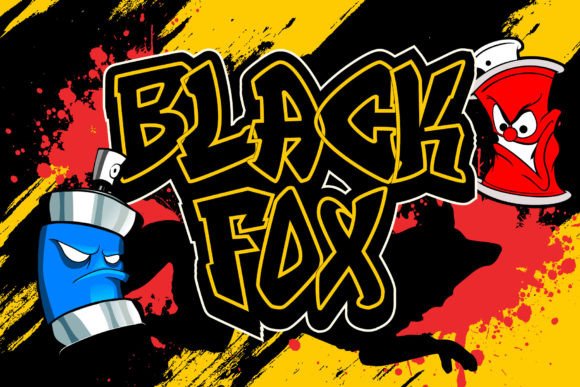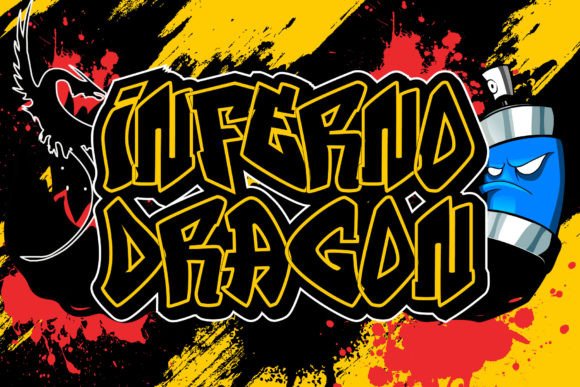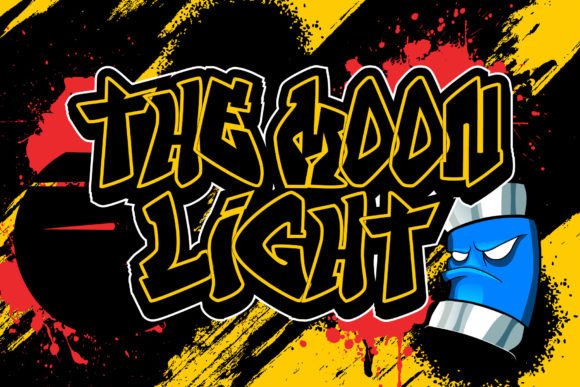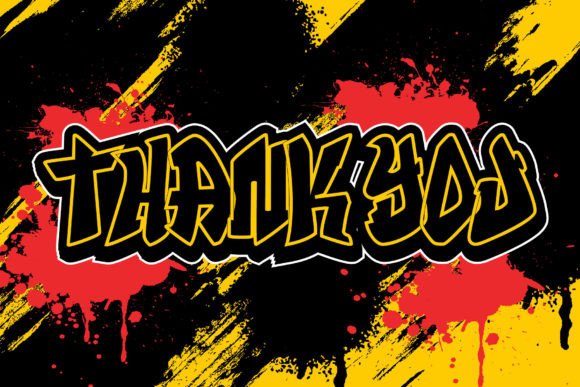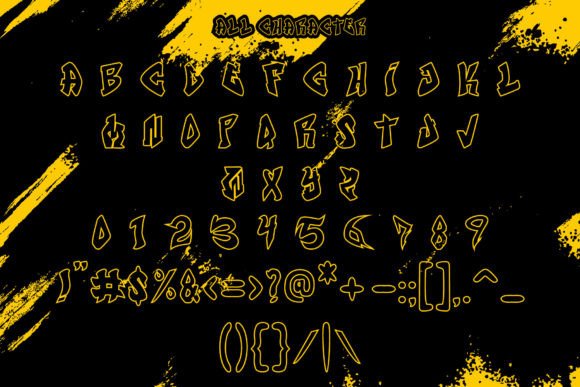
Introduction to Retro Graffiti Monoline Font
As designers, we’ve all been there – stuck on a creative project, searching for that one special element to bring it all together. Maybe it’s a bold, eye-catching headline or a distinctive typographic style that sets our work apart from the rest. For me, that moment came when I stumbled upon the Retro Graffiti Monoline Font – a game-changing design resource that instantly elevated my urban-inspired designs.
This high-quality font is a masterclass in nostalgic design, perfectly capturing the spirit of vintage graffiti with its chunky, monoline letters. Its transparent background makes it easy to layer and manipulate, allowing for endless creative possibilities. Whether you’re working on a fashion campaign, a streetwear brand, or simply a fun project to showcase your artistic side, the Retro Graffiti Monoline Font is a must-have addition to your design toolkit.
Key Features of Retro Graffiti Monoline Font
- Unique, hand-drawn design style that captures the essence of retro graffiti art
- Transparent background, allowing for seamless integration with any background design
- Perfect for use in creative projects, such as posters, flyers, and social media graphics
- Monoline design with bold, geometric lines that add a touch of urban flair to any design
Honest Review: Retro Graffiti Monoline Font
As a designer, I’ve had the pleasure of working with various fonts for my creative projects, and I’m excited to share my thoughts on the Retro Graffiti Monoline Font. This font is a fantastic resource for designers looking to add a touch of nostalgia and edginess to their work.
- ✨ High-quality design: The Retro Graffiti Monoline Font has a smooth and precise design, making it perfect for printing and digital use.
- ✨ Versatile: This font is suitable for a wide range of creative projects, from logos to posters and even social media graphics.
- ✨ Transparent background: This font comes with a transparent background, allowing for seamless integration with your design.
- ⚠️ Limited character set: The Retro Graffiti Monoline Font has a relatively small character set, which may not be suitable for projects requiring extensive text.
- ⚠️ Not ideal for body text: Due to its unique style, this font is better suited for headlines and titles rather than body text.
Overall, I’m impressed with the Retro Graffiti Monoline Font. While it may have some limitations, its unique design and versatility make it a valuable addition to any designer’s toolkit. If you’re looking for a font to add some flair to your creative project, I highly recommend giving this one a try.
The Retro Graffiti Monoline Font is a unique and eye-catching design resource ideal for creative projects. This high-quality font is available for free download and features a transparent background, making it easy to incorporate into your designs.
To get the most out of the Retro Graffiti Monoline Font, try using it in combination with bold colors and striking graphics.
Experiment with different font sizes and styles to create a unique and eye-catching design.
The Retro Graffiti Monoline Font is ideal for use in:
Marketing materials, such as flyers and brochures.